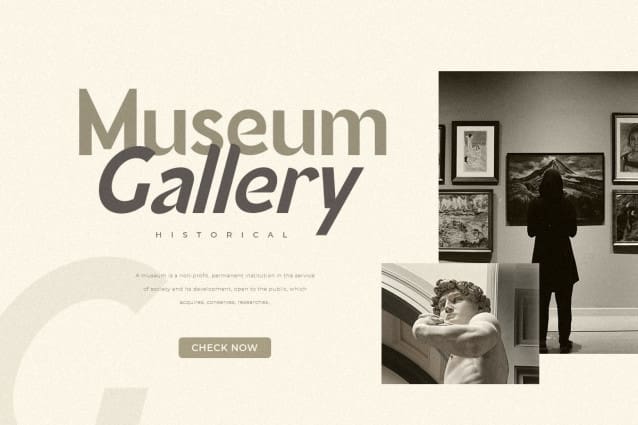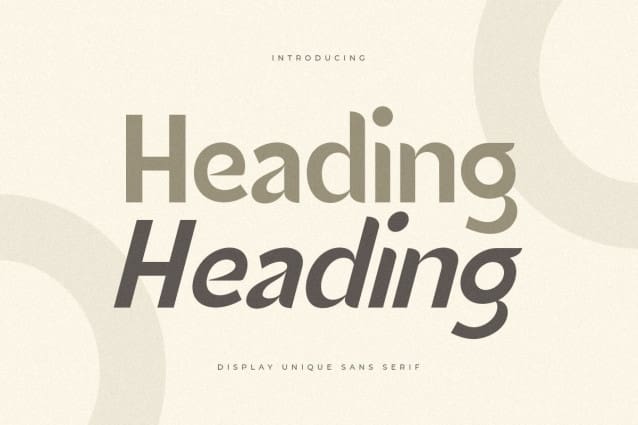
Heading Font
Heading Font is a unique display sans serif font specially created for modern needs with a unique style . A new display font we created especially for unique branding needs, with a strange style ready to add value to your brand. It’s so nice to call on a designer or product owner who needs solutions to make their design more unique and urban.